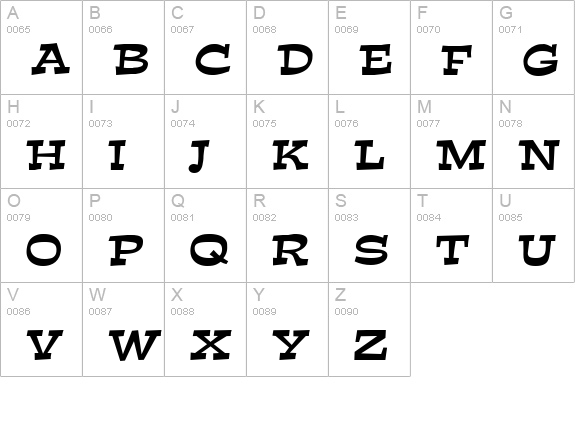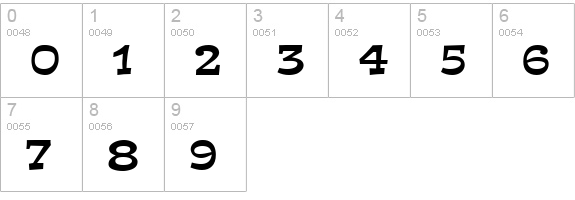
Expose Wide Normal is the standard, neutral, extended-width variant in the Expose typeface family \xE2\x80\x94 well suited to general body text, paragraphs, and standard typographic work.
Introducing Expose Wide Normal font, a versatile and modern typeface that is perfect for a wide range of design projects. This font features a clean and elegant design with a wide character width, making it ideal for headlines, branding, posters, and more. Expose Wide Normal font is sure to make your text stand out and leave a lasting impression on your audience. The best part? Expose Wide Normal font is available for free download at FontsMarket.com. This means you can easily access this stylish and eye-catching font without any cost. Don't miss out on the opportunity to enhance your designs with Expose Wide Normal font today!